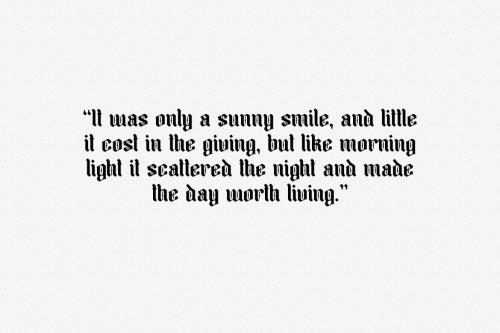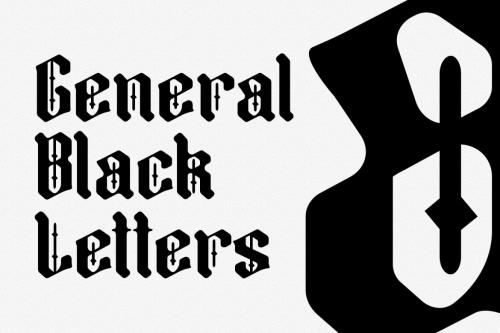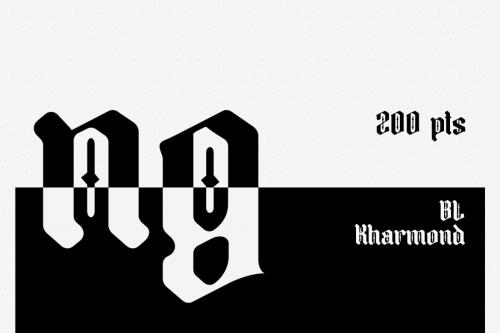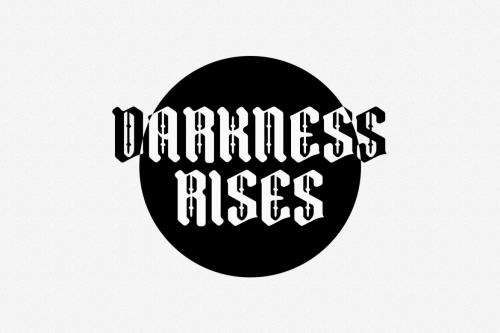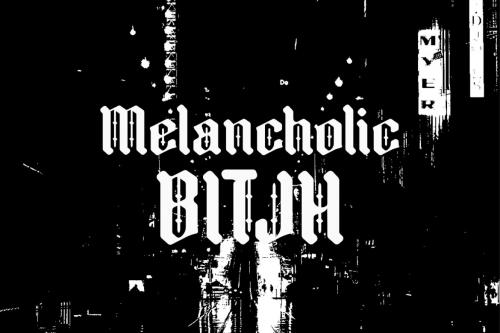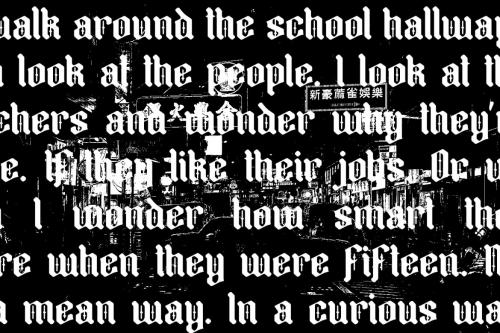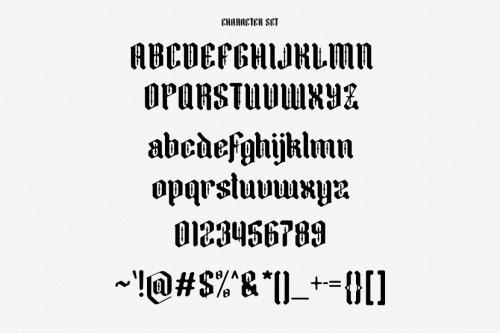
Kharmond is a fancy blackletter modern display font. With medium low contrast stroke, fun character with a bit of ligatures and alternates. To give you an extra creative work. Kharmond font support multilingual more than 100+ language. This font is good for logo design, Social media, Movie Titles, Books Titles, a short text even a long text letter and good for your secondary text font with sans or serif. Make a stunning work with Kharmond font.